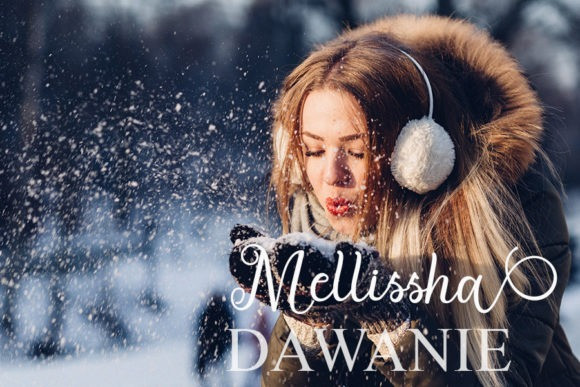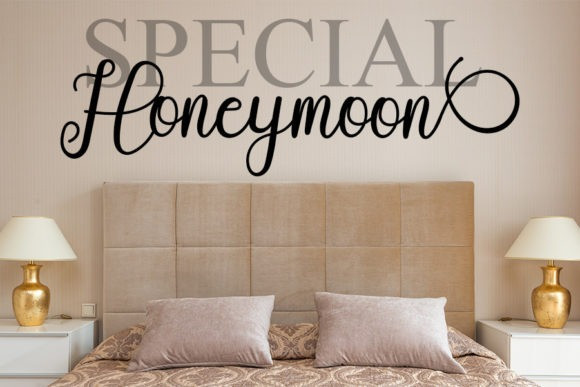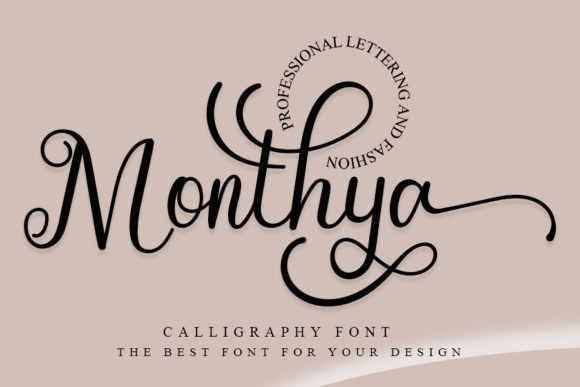
Monthya Font
Monthya Script Font is an enchanting handwritten font. This versatile script font has a wide spectrum of applications ranging from greeting cards to headlines and is guaranteed to add a romantic feel to your next project.